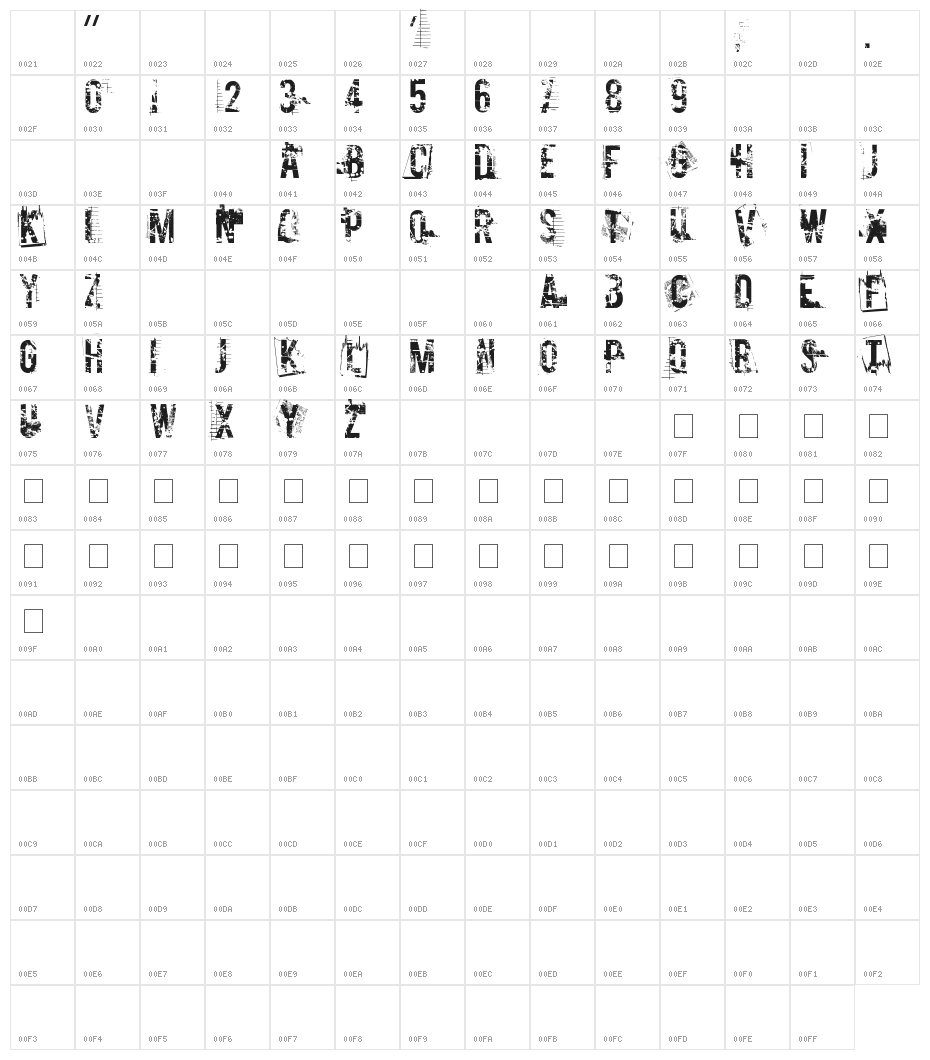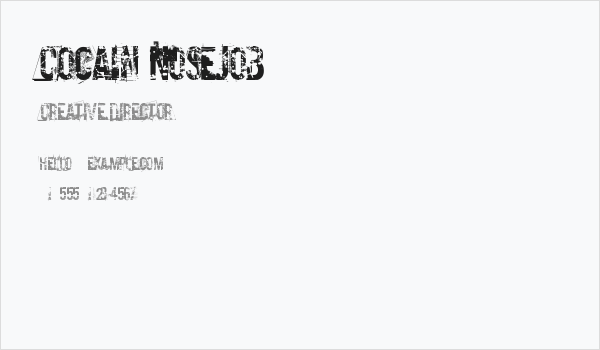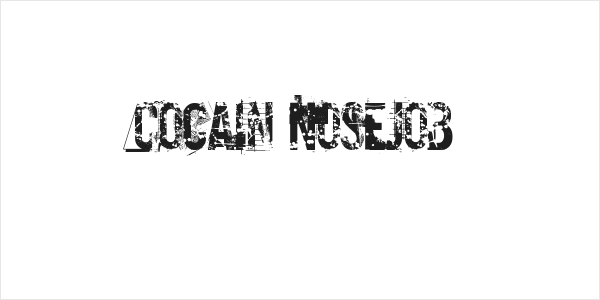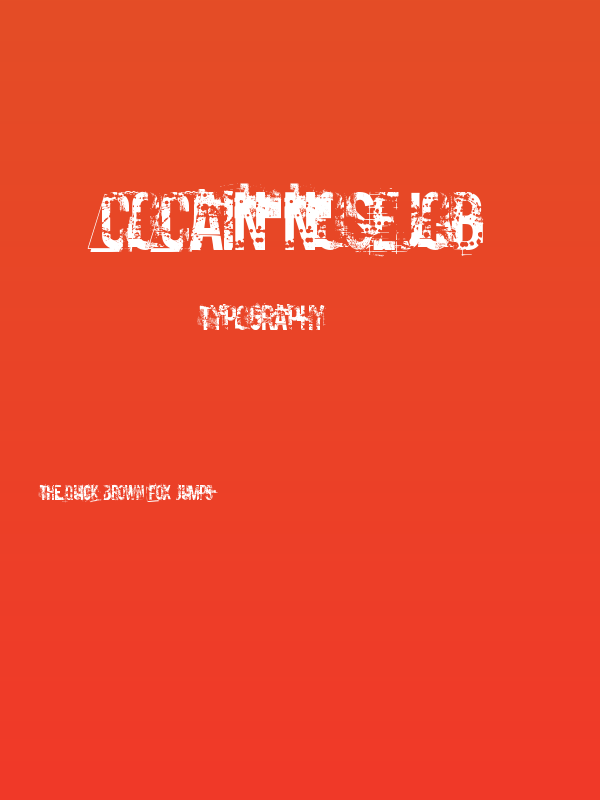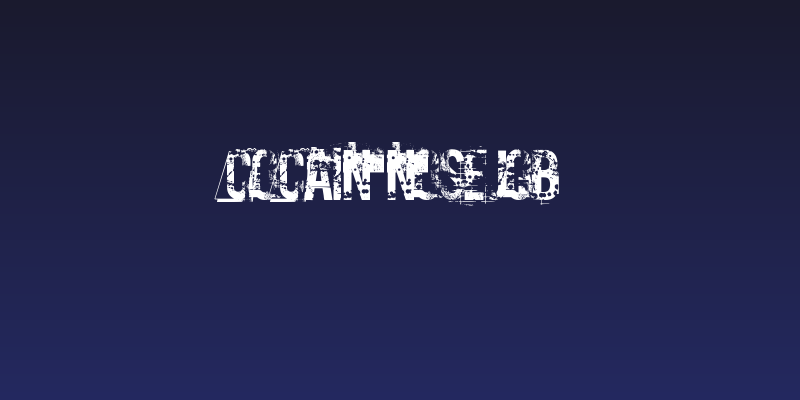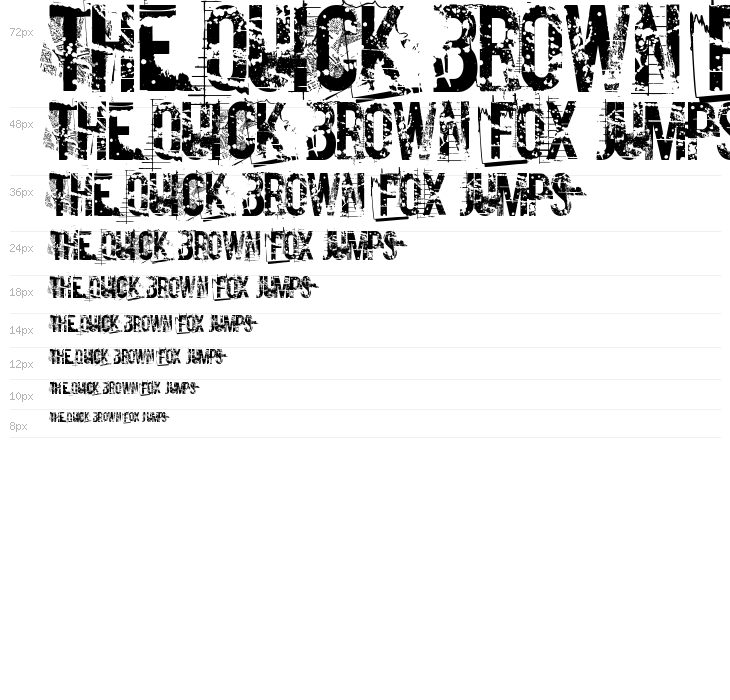
Cocain Nosejob Font
Cocain Nosejob Description
This font features a distressed and grungy aesthetic, with a heavily textured appearance that gives it a worn and weathered look. The characters are bold and uppercase, with irregular edges and a rough, uneven surface that suggests a sense of decay or erosion. The design incorporates elements of chaos and disorder, with splatters and scratches that add to its gritty, urban feel. This style is reminiscent of street art or graffiti, making it ideal for projects that aim to convey a rebellious or edgy vibe. The font's unique character is further enhanced by its high contrast between thick and thin strokes, which adds depth and dimension to the overall appearance.
| Overall Style | Grunge, Urban, Edgy |
| Proposed Projects | Ideal for album covers, posters, streetwear branding, or any project seeking an edgy, urban aesthetic. |